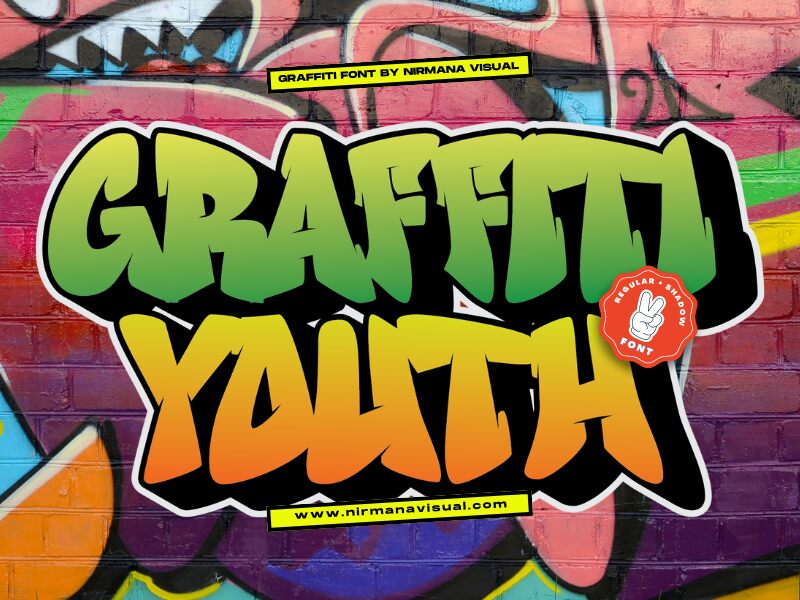
Graffiti Youth, designed by Nirmana Visual, bursts onto the scene with an extra-bold statement that perfectly captures the rebellious spirit and artistic flair of street art. This graffiti-inspired font sports a dynamic and edgy aesthetic that makes it instantly recognizable, embodying the vibrant energy of urban culture.
Upon visual inspection, Graffiti Youth's chunky letters and assertive lines convey a sense of confidence and impact. The font's style is unapologetically loud and demands attention, making it an excellent choice for projects that aim to stand out and resonate with a youthful audience.
Whether splashed across a poster, emblazoned on apparel, or giving life to branding projects, Graffiti Youth offers designers a slice of urban cool that is both versatile in application and visually striking. Its unique characteristics ensure it will inject personality into every creative endeavor it graces.